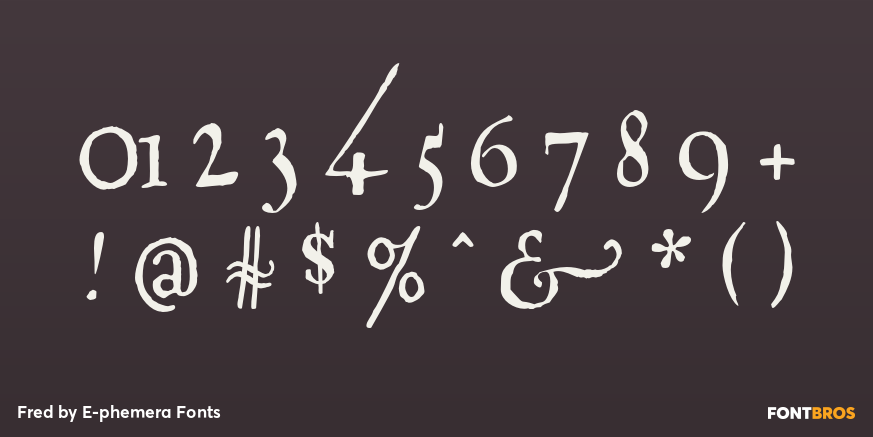
Fred
Font Family by E-phemera Fonts
The Fred family is based on the casual hand lettering of Fred G. Cooper: cover artist, cartoonist, and letterer for Life magazine in the 1920s and '30s.
His relaxed style captures the flavor of the Roaring Twenties, and the digital font was developed for use in the credits and title cards for a 1920s-style silent movie, The Call of Cthulhu.
In an effort to keep the hand-lettered look, the OpenType font has numerous discretionary ligatures and contextual alternates, along with fleurons and ornaments.